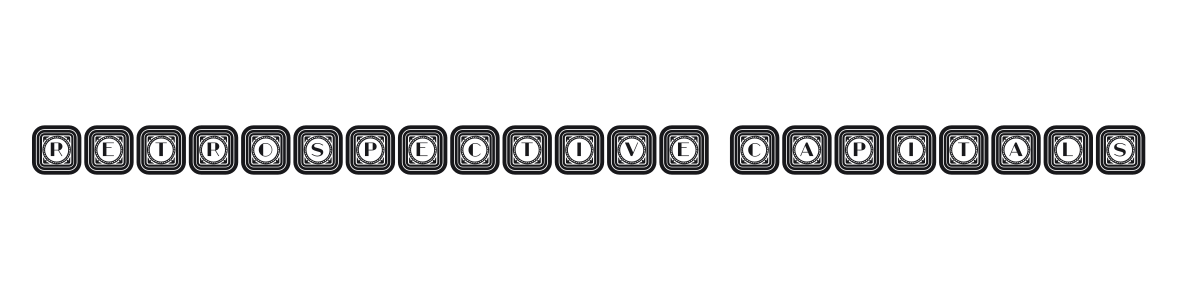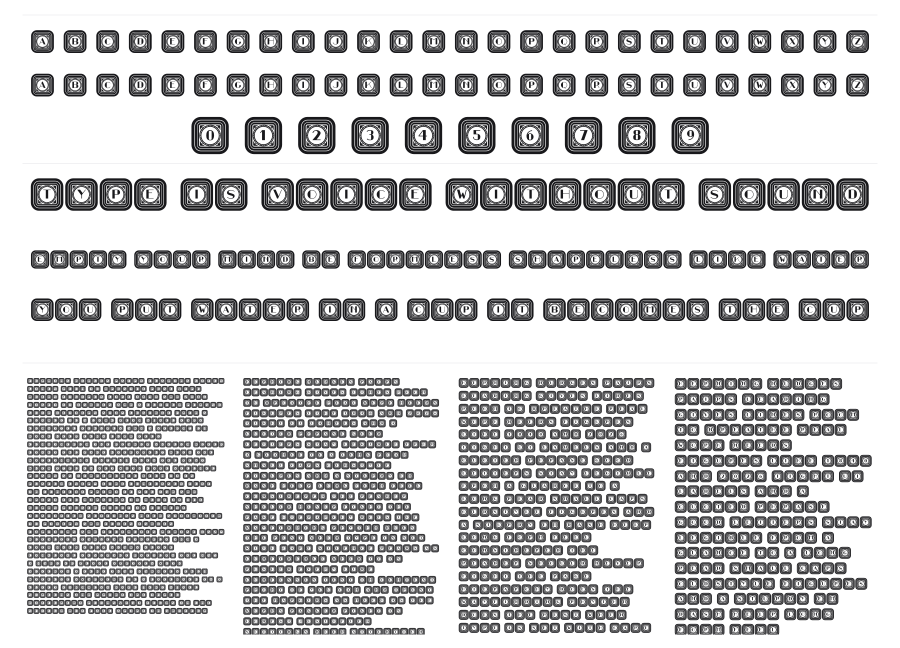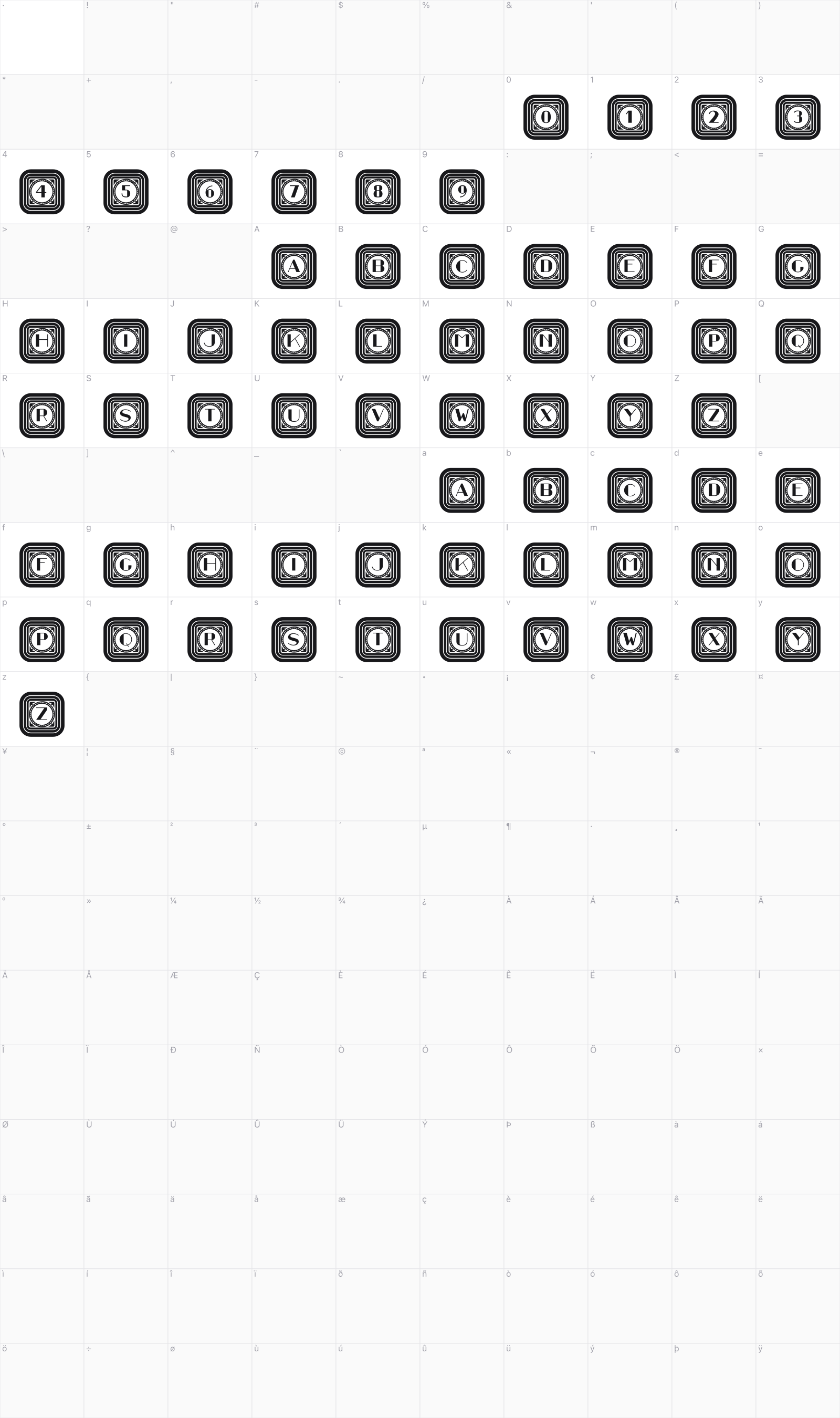
Retrospective Capitals
Retrospective Capitals frames every letter inside an ornate rounded-square tile with concentric inset borders and a circular medallion, evoking Art Deco badges and vintage board game pieces. The layered geometric frames create a rich, textural density that commands attention at large sizes. It works best as a display face for titles, packaging, or branding that needs a bold retro identity.